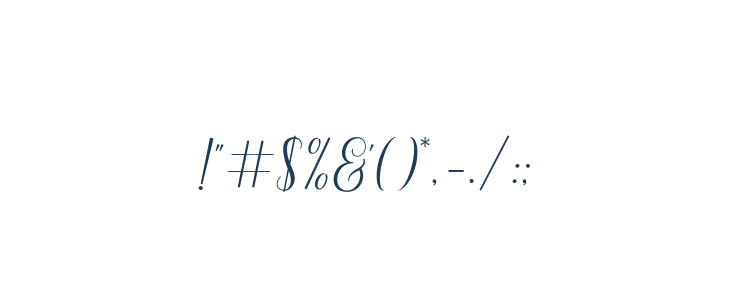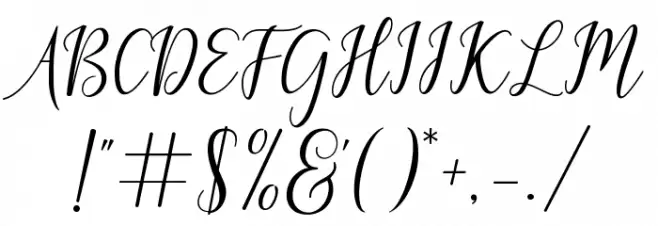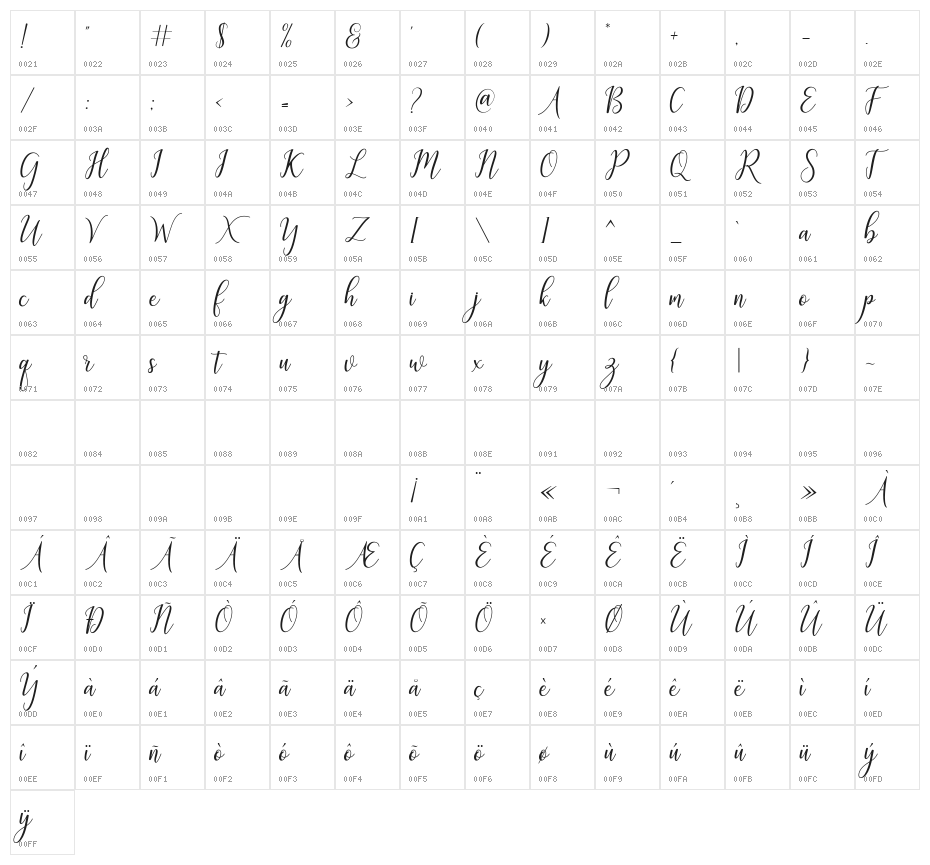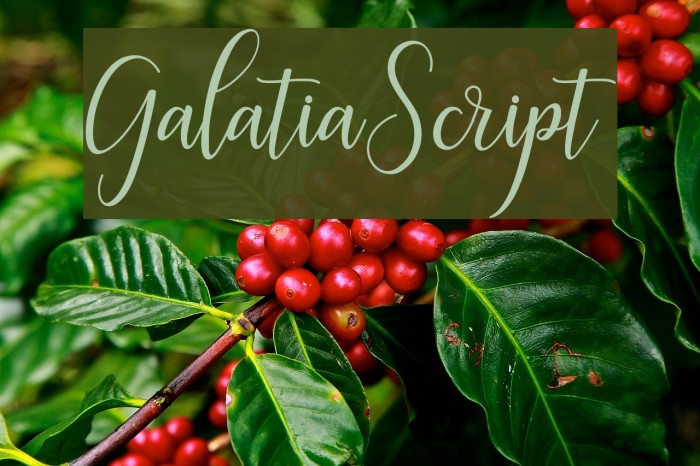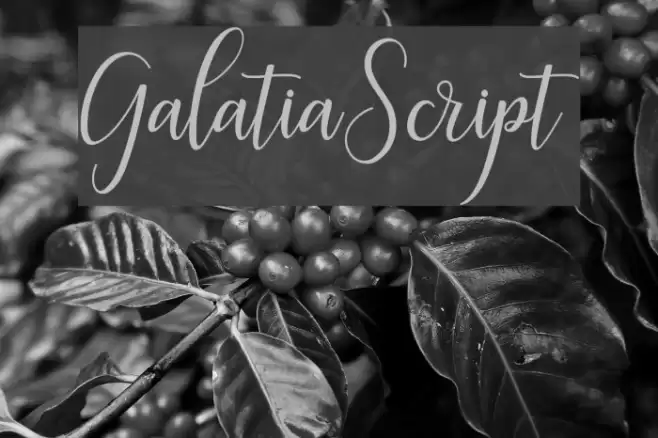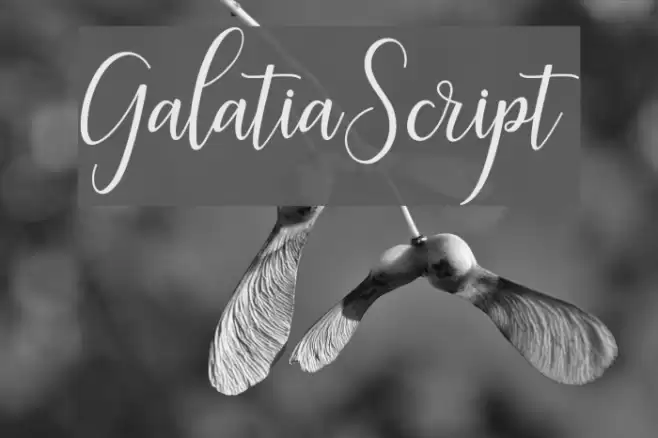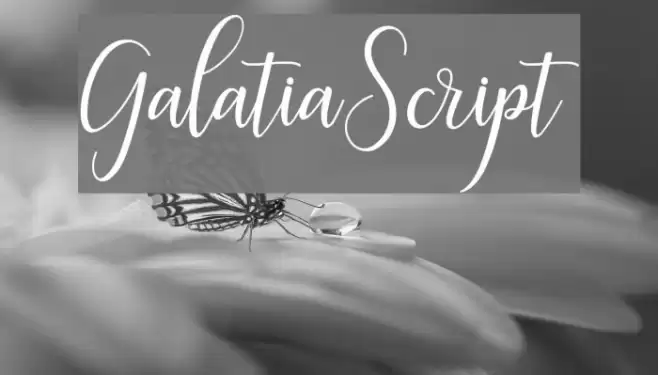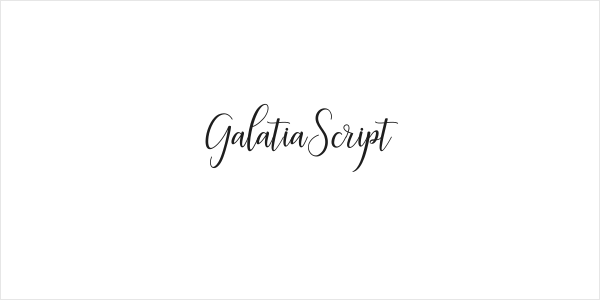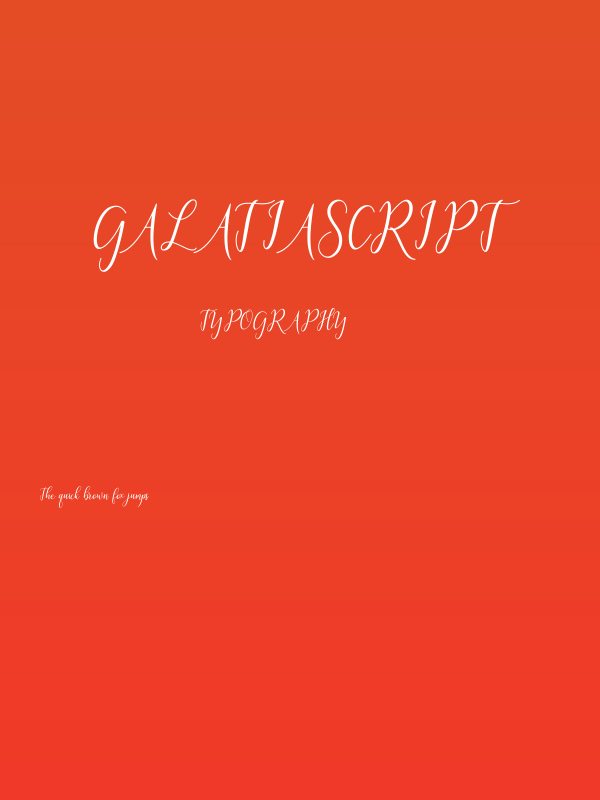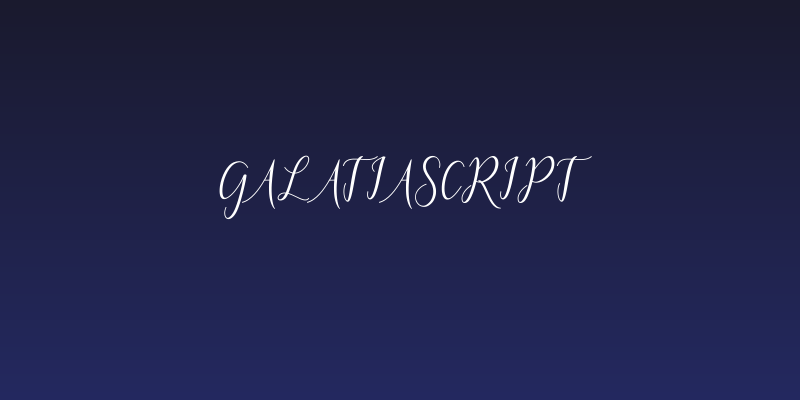
GalatiaScript Font
GalatiaScript Description
This elegant script font features flowing, cursive characters with a calligraphic style. The uppercase letters are tall and graceful, with sweeping lines and delicate curves that give a sense of sophistication and fluidity. The lowercase letters maintain a consistent style, with loops and flourishes that enhance the font's decorative appeal. The numerals and special characters are designed to match the overall aesthetic, providing a cohesive look. This font is perfect for projects that require a touch of elegance and formality, such as wedding invitations, branding, and high-end product packaging.
| Proposed Projects | Ideal for wedding invitations, luxury branding, and elegant product packaging. |